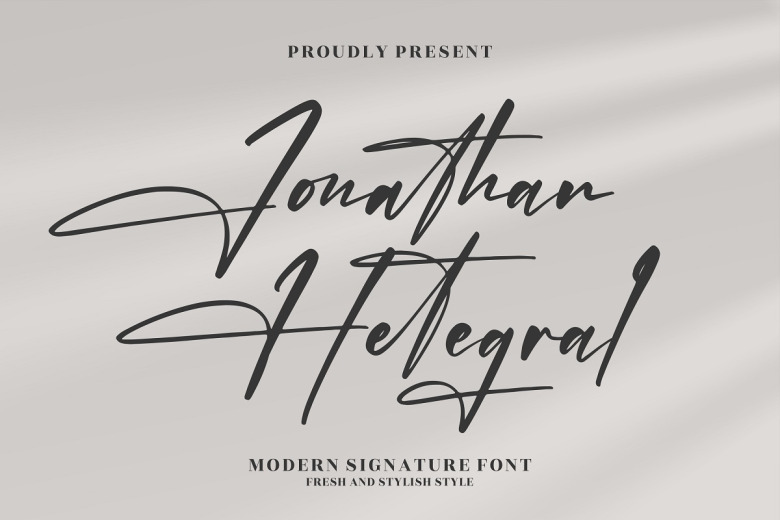
Jonathan Hetegral Font
Jonathan Hetegral, a beautiful and sophisticated signature script, its refined look both classy and elegant, modern too. For logos design, invitations, weddings beautiful, also branding social media, stationery and more. This font refined glyphs easy access, all swashes PUA encoding allows. Elegance modernity consistently balanced, a splendid choice wherever refinement and beauty required.
Jonathan Hetegral Signature Font